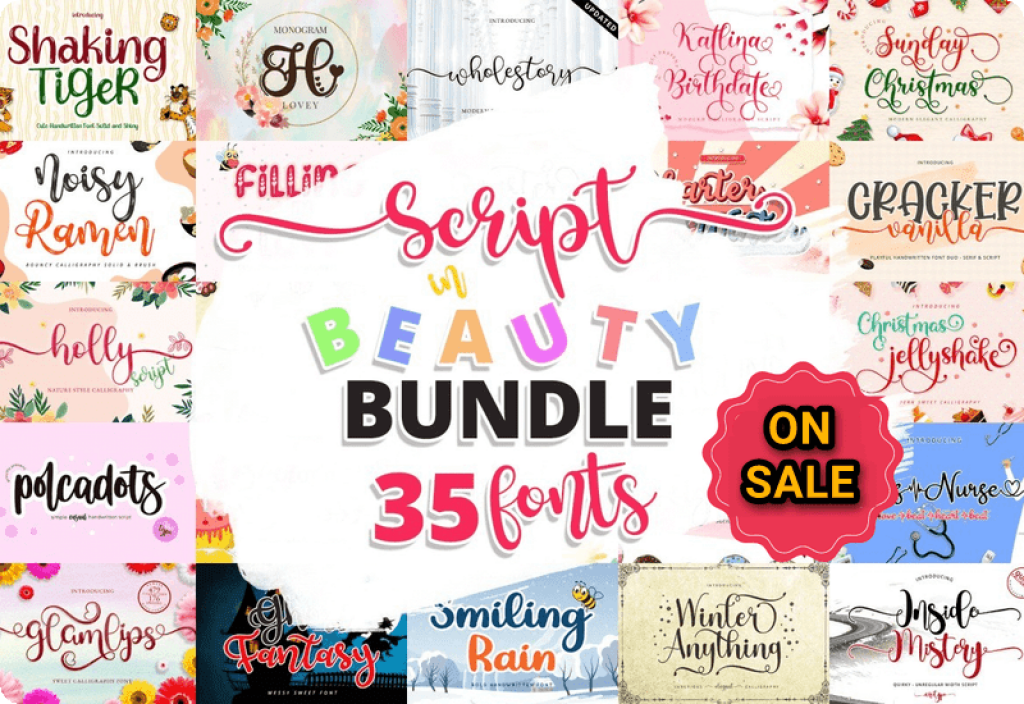
Script fonts are highly favored by designers currently. If you’re in search of a fresh addition to your font collection, consider exploring the Script in Beauty Font Bundle! This bundle showcases an impressive selection of 35 top-notch fonts, encompassing a diverse range of script styles such as retro, quirky, playful, elegant, and beyond. It’s an excellent choice for those aiming to enhance their font library with versatile and engaging typefaces.
The Script in Beauty Font Bundle is a treasure trove for designers seeking new typefaces. With 35 high-quality fonts to choose from, including styles ranging from retro to elegant, this bundle offers a wide variety of options to elevate your design projects.
The premium fonts included in the Script in Beauty Font Bundle:
- Wholestory
- Mrs Nurse
- Charter Winter
- Christmas Jellyshake
- Lovey Monogram Font
- Brownies Glass
- Shaking Tiger
- Hello Pumpkin
- Cracker Vanilla
- Bestnight
- Smiling Rain
- Holly Script
- Glamlips
- Hahaha Land
- Noisy Ramen
- Blush Night
- Clara Signature
- Bigcake
- Better Ground
- Pinklove
- Inside Mistery
- Mister Valentine
- Ghost Fantasy
- Winter Anything
- Yushina
- Katlina Birthdate
- Study in August
- Sunday Christmas
- Filling in Love
- Hamsterkids
- Angelistya
- Milestone
- Pretty Burger
- Polcadots
- Ballkids Game
Scripts are often used for invitations or other special occasions because they can be so beautiful. They also work well for logos or labels that need an extra bit of cuteness factor.